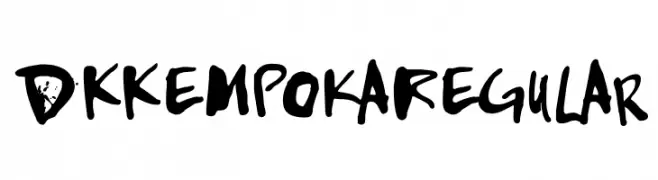
A bold, hand-drawn font with high contrast and an expressive, artistic style.
A dynamic, brush-style font with an expressive, hand-drawn appearance.
A bold, brush script font with dynamic, hand-painted strokes.
A bold, brush-stroke font with a textured, hand-painted appearance.
A bold, expressive brush-style font with dynamic strokes and textured appearance.
A playful, brushstroke-style font with a handcrafted appearance.
A whimsical, hand-drawn font with playful and irregular strokes.
A playful, hand-drawn font with a whimsical and informal style.
A playful, textured font with a crayon-like appearance.